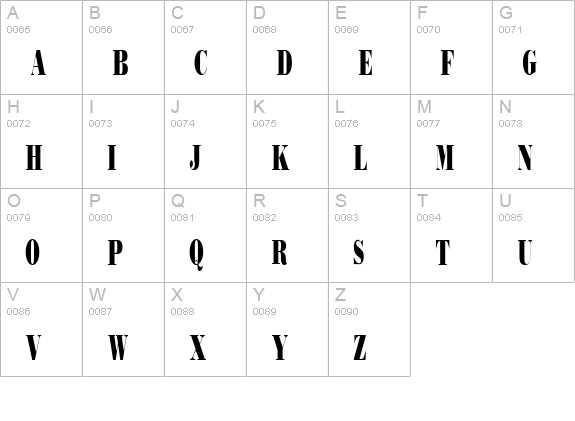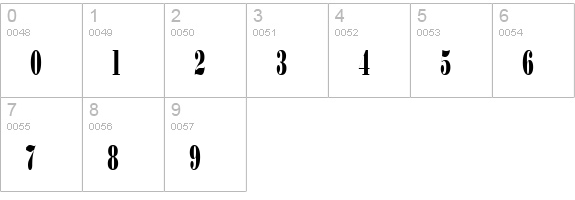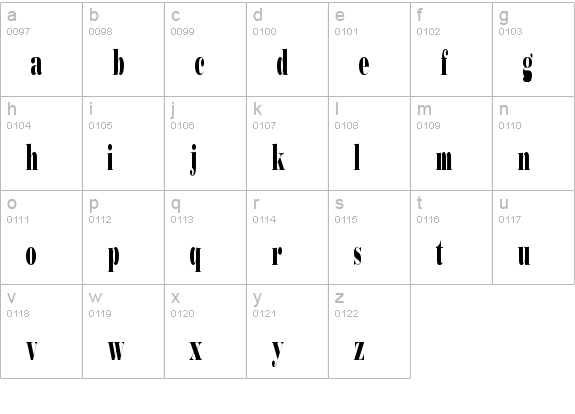
Bodidly Regular Font Details
Bodidly Regular is the standard, neutral variant in the Bodidly typeface family \xE2\x80\x94 well suited to general body text, paragraphs, and standard typographic work.
Bodidly Regular font is a versatile and modern typeface that exudes elegance and sophistication. With its clean lines and stylish curves, Bodidly Regular is perfect for a wide range of design projects, from logos to posters to branding materials. This font offers a classic yet contemporary look that will make your text stand out. Best of all, Bodidly Regular font is completely free to download at FontsMarket.com. This means you can easily access this stunning font and use it in your projects without any cost. Whether you're a professional designer or a hobbyist, Bodidly Regular font is a fantastic addition to your font collection. Download it today and elevate your designs with this beautiful and free typeface.